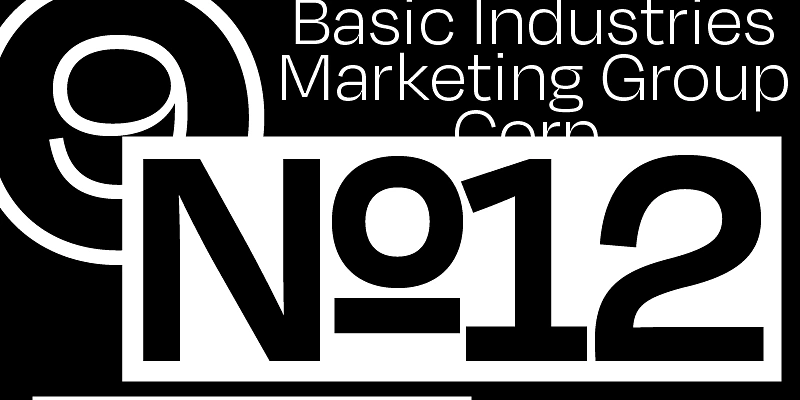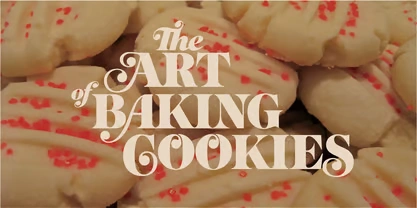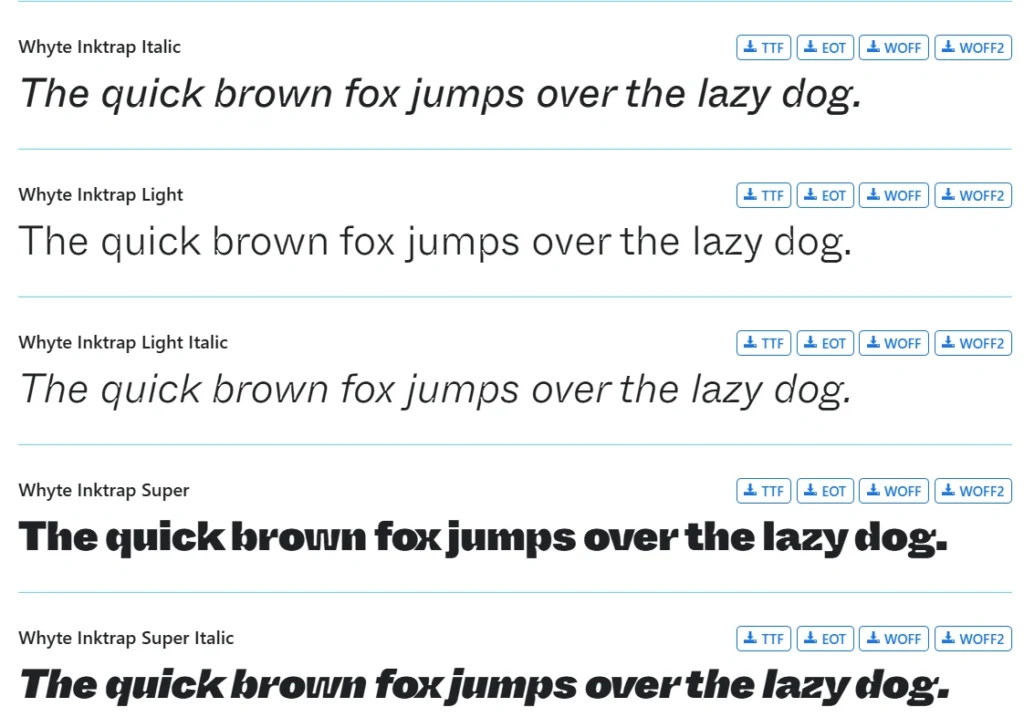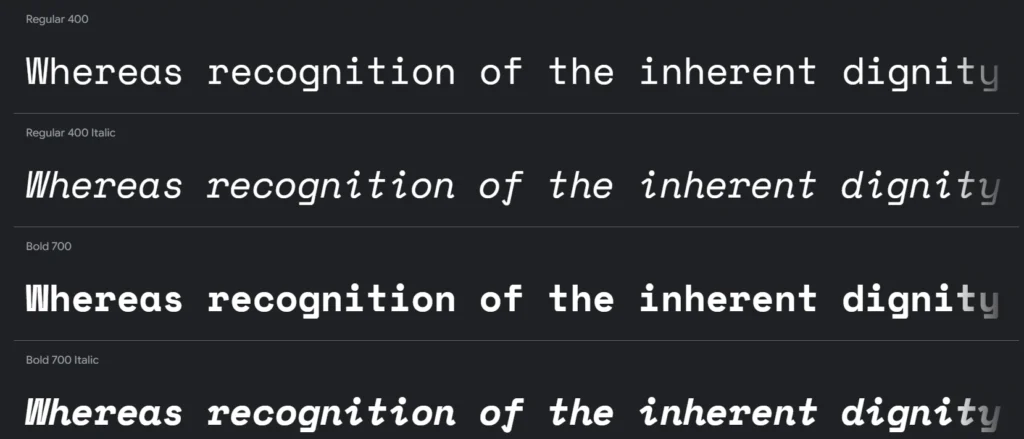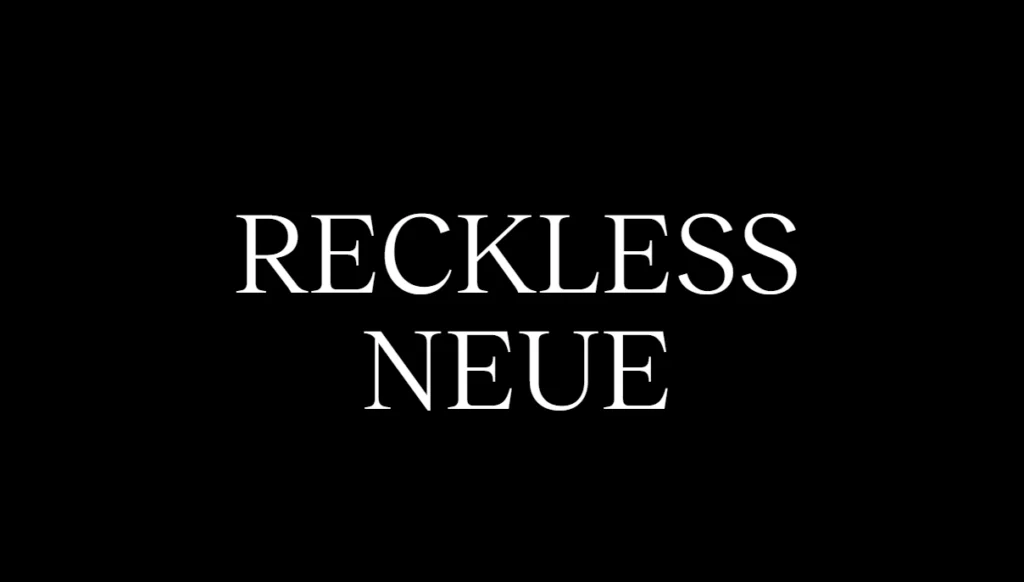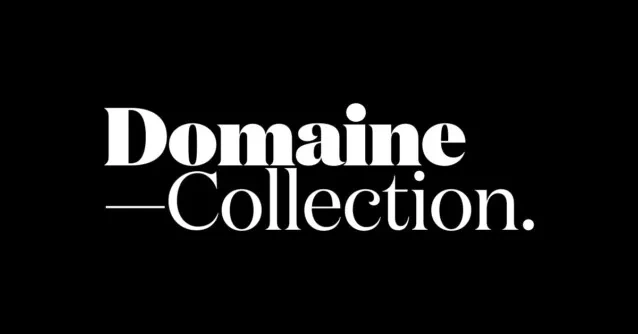
Imagine this: You’re building a brand, and you need a logo that speaks volumes before you even say a word. That’s where the right logo font comes in. In today’s fast-paced world, your logo is more than just a symbol; it’s the face of your brand. A great logo font helps you share your story quickly and clearly.
It makes your brand memorable, sets the mood, and builds trust with your audience. When you choose the best logo fonts, you’re not just picking letters—you’re choosing a style that tells your brand’s personality.
You might wonder why logo fonts matter so much. Think about the logos you love. They’re usually simple, clean, and easy to read. A good font has the power to evoke feelings and spark curiosity. It can be bold and adventurous or calm and reassuring. The perfect font grabs attention without overwhelming your message. It makes your brand look modern, professional, and approachable.
In this guide, you’ll discover the top logo fonts of 2025, handpicked to suit any brand identity. We’ve put together a list that balances creativity with practicality. You’ll find fonts that work for a tech startup, a cozy café, or even a high-end boutique.
As you explore these logo fonts, keep in mind that your choice is more than an aesthetic decision—it’s a crucial part of your brand’s success. With the right font, you can create a lasting impression and make your mark in a crowded market. Let’s dive into the world of logo fonts and find the perfect match for your brand identity.
1. Clash Grotesk
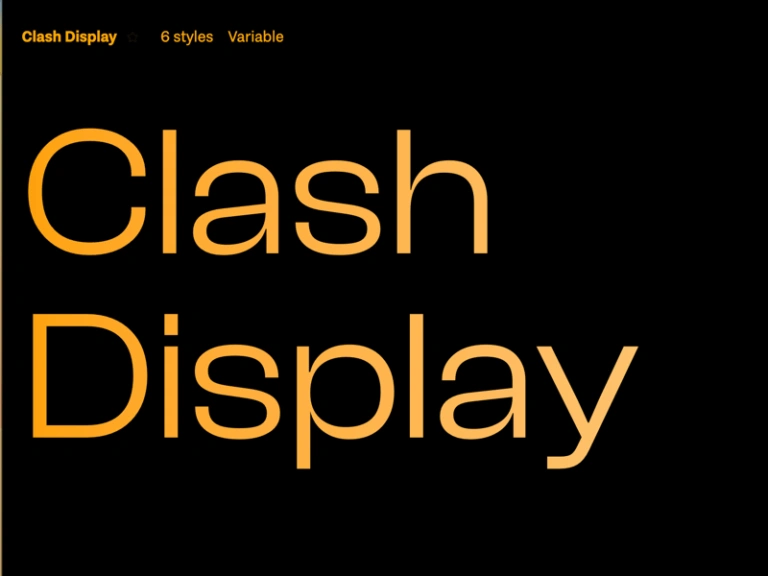
- Designer: Indian Type Foundry
- Style: Geometric Sans-Serif
Why It Stands Out
Clash Grotesk combines clean, modern shapes with a touch of warmth. The letters are open and easy to read, making it feel more friendly than traditional geometric fonts. The lowercase “a” is more open than Futura’s, and the sharp ends of “t” and “r” give it a bold, unique look. The double-story “g” adds a classic feel, while the even stroke thickness keeps everything balanced.
- Weights: 6 styles
- Languages: Supports Latin, Cyrillic, and Greek
- Extras: Alternative designs for “a” and “g,” plus special letter combinations
Best Uses
- Tech Brands: Great for AI, cybersecurity, and software companies that want a mix of trust and innovation.
- Luxury Fashion: The thinner styles work well for high-end brandings, like jewelry or designer labels.
- Creative Studios: A solid pick for agencies that mix art and technology.
Why It’s Still a Great Pick in 2025
As brands look for ways to connect emotionally with audiences, Clash Grotesk offers the perfect balance of tech precision and human warmth. Its wide language support makes it great for global brands, and its flexibility means it can adapt to different design needs.
2. Suisse Int’l
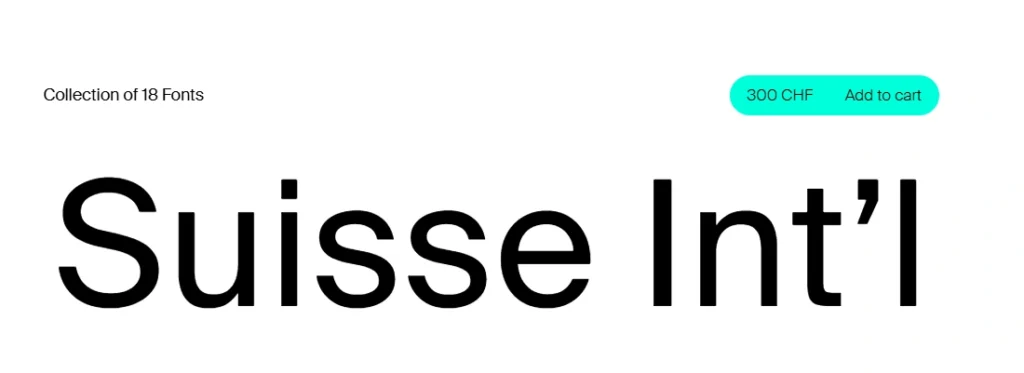
- Designer: Swiss Typefaces
- Style: Neo-Grotesque Sans-Serif
Why It Stands Out
Suisse Int’l is a modern take on Helvetica but with more personality. It keeps the Swiss design’s clean, precise look but adds small details that make it unique. The letter “s” has a slight tilt, and bold weights have ink traps for better readability. The uppercase “J” drops below the baseline, adding a stylish touch, while the “Q” has a sleek, detached tail. The thinnest version feels elegant, while the thickest looks bold and powerful.
- Weights: 18 styles (9 weights, each with italics)
- Languages: Supports over 200 languages, including Cyrillic and Vietnamese
- Size Options: Designed for both small text and large headlines
Best Uses
- Finance Apps: Great for fintech platforms looking modern yet trustworthy.
- Luxury Brands: Thin styles work beautifully for high-end packaging like perfume or watches.
- Architecture & Design: Its clean, geometric shapes fit brands that focus on minimalism.
Why It’s Still a Great Pick in 2025
Suisse Int’l is a favorite for brands that want a sleek, professional look. It works well in digital designs, saving space on mobile screens while keeping everything easy to read. Its licensing makes it a smart choice for privacy-conscious companies, especially in the EU.
3. Aeonik
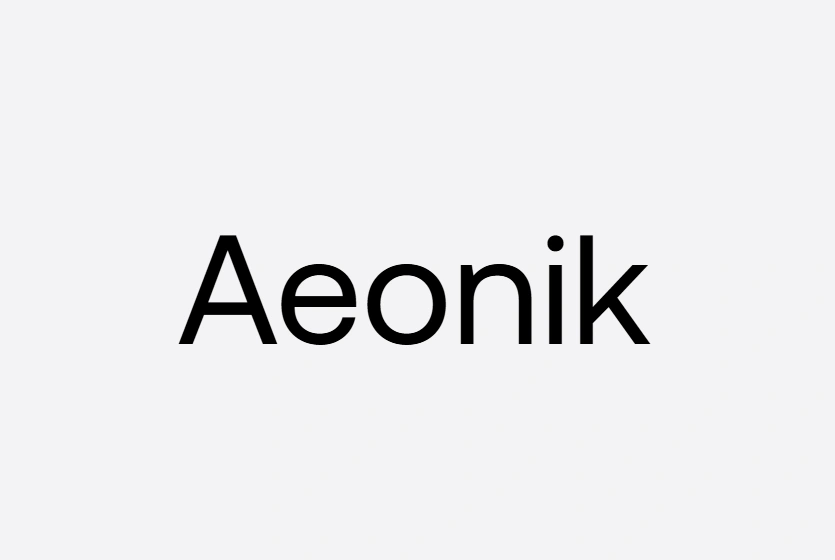
- Designer: Mark Bloom
- Style: Geometric Sans-Serif
Why It Stands Out
Aeonik is a mix of clean geometric shapes and soft edges. It looks modern but avoids feeling too strict or cold. The lowercase “e” has a horizontal bar that makes it easier to read, and the “k” has a unique slanted leg, giving it a bit of personality. The even stroke thickness keeps everything smooth and balanced, making it a great choice for brands that want a fresh and friendly feel.
- Weights: 16 styles with matching italics
- Variable Font: Adjusts seamlessly for different sizes and widths
- Languages: Supports Latin, Greek, and Cyrillic
Best Uses
- Sustainable Brands: Soft curves make it perfect for eco-friendly products and packaging.
Best Uses
- Media Conglomerates: Use the serif style for print headlines and sans for digital applications.
- Innovation Hubs: Incorporate animated transitions in UI/UX design for a modern touch.
- Hybrid Events: Adjust logos easily for both physical and digital platforms.
Why It’s a Great Choice in 2025
Garnett’s versatility meets the needs of brands looking for dynamic identities that work across multiple platforms. Its variable technology also helps reduce server load, making it a sustainable choice for web design.